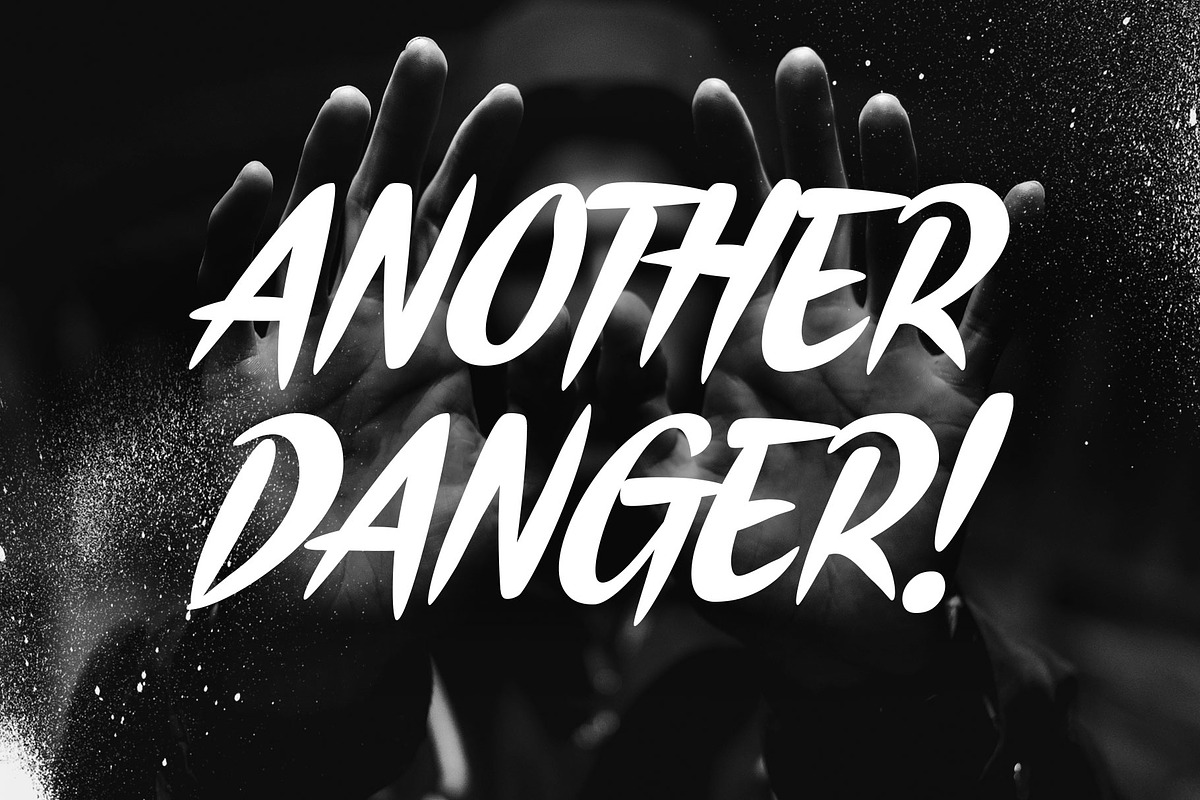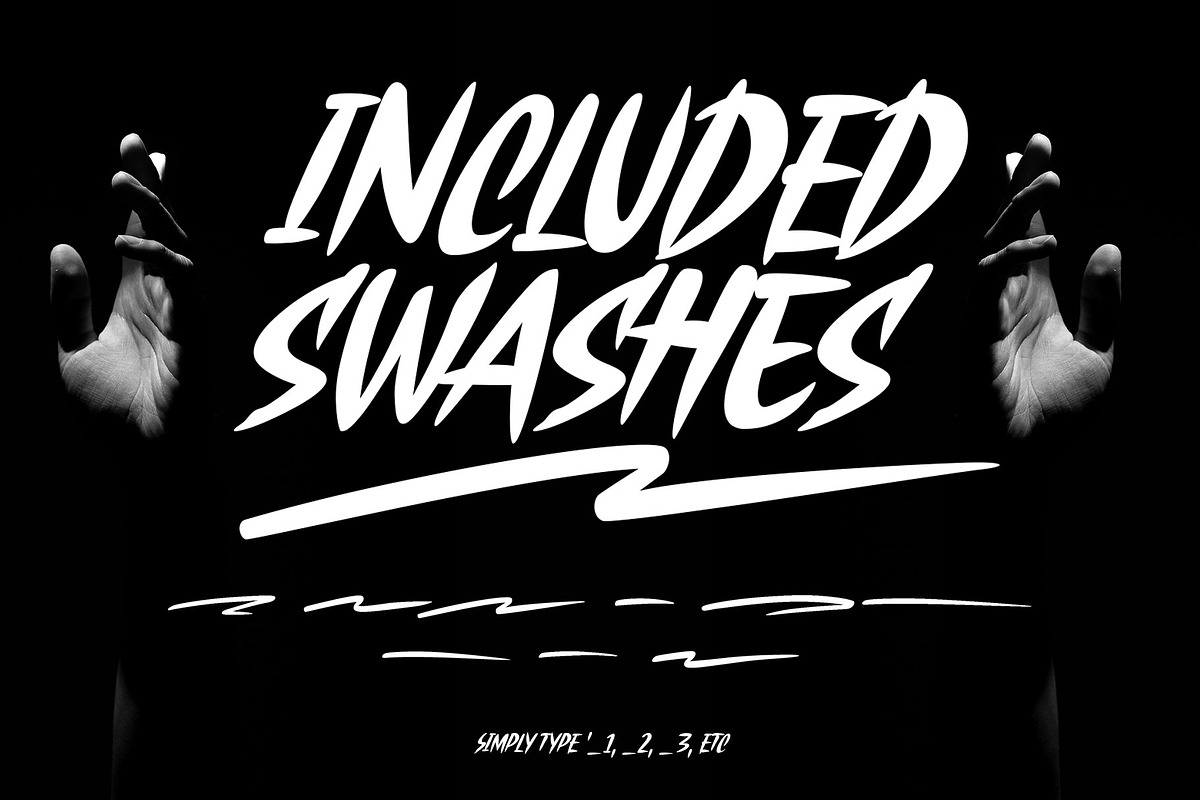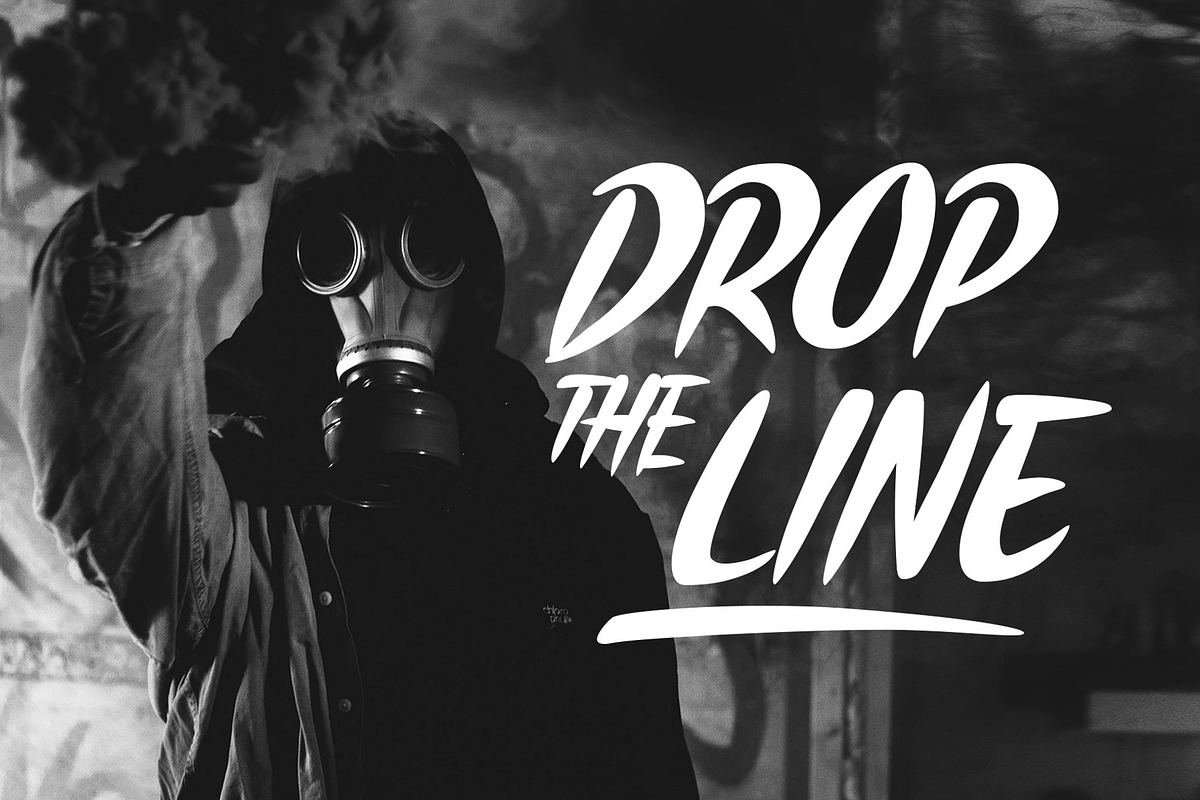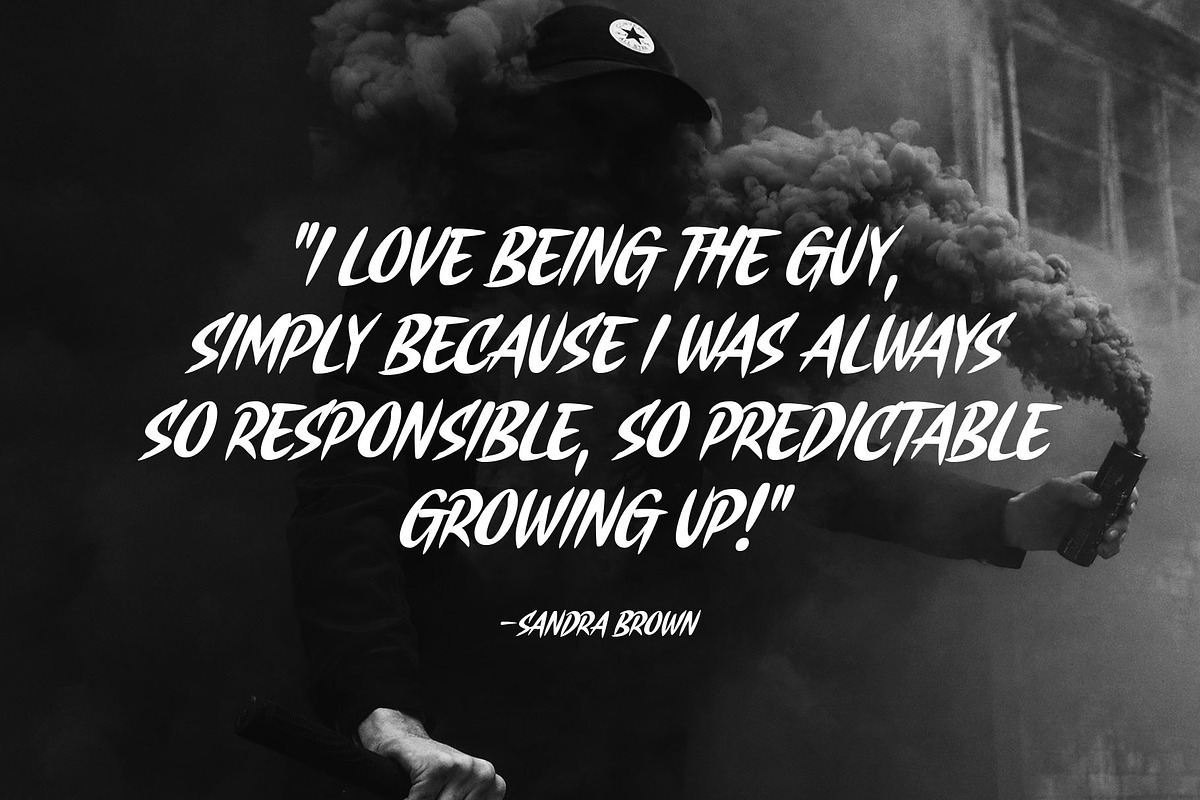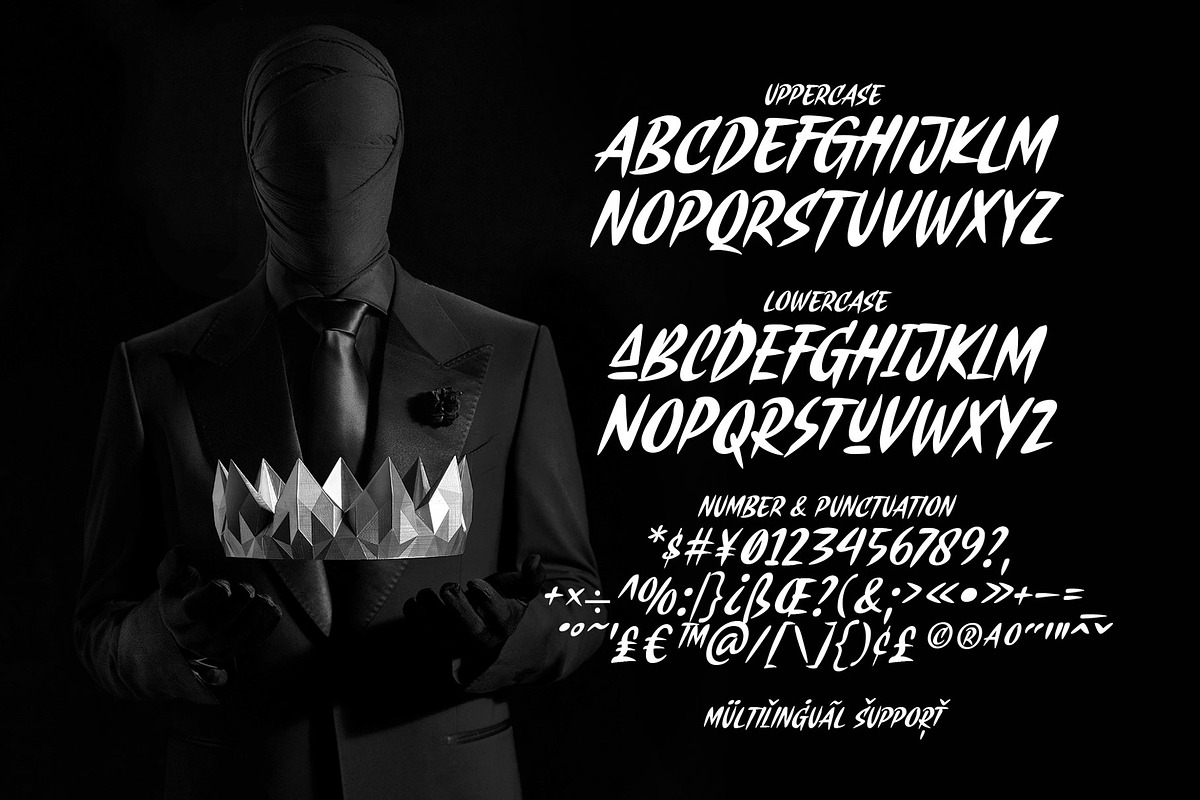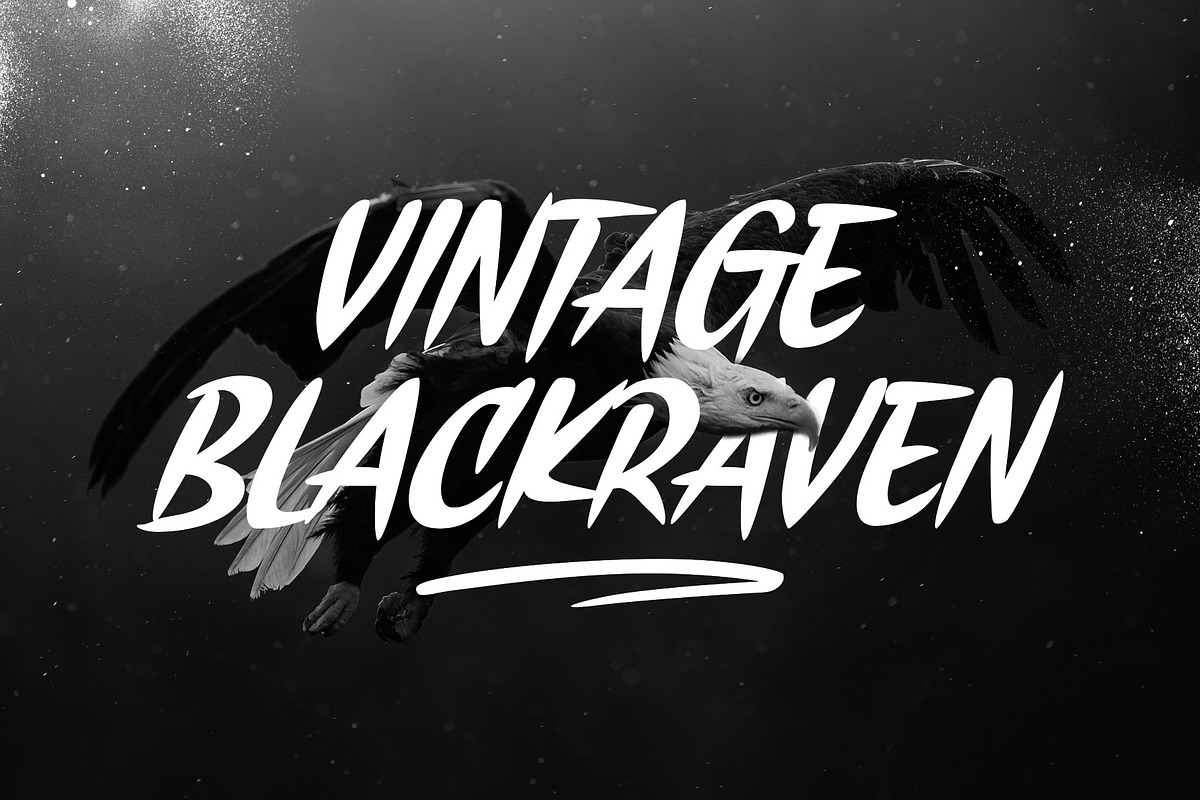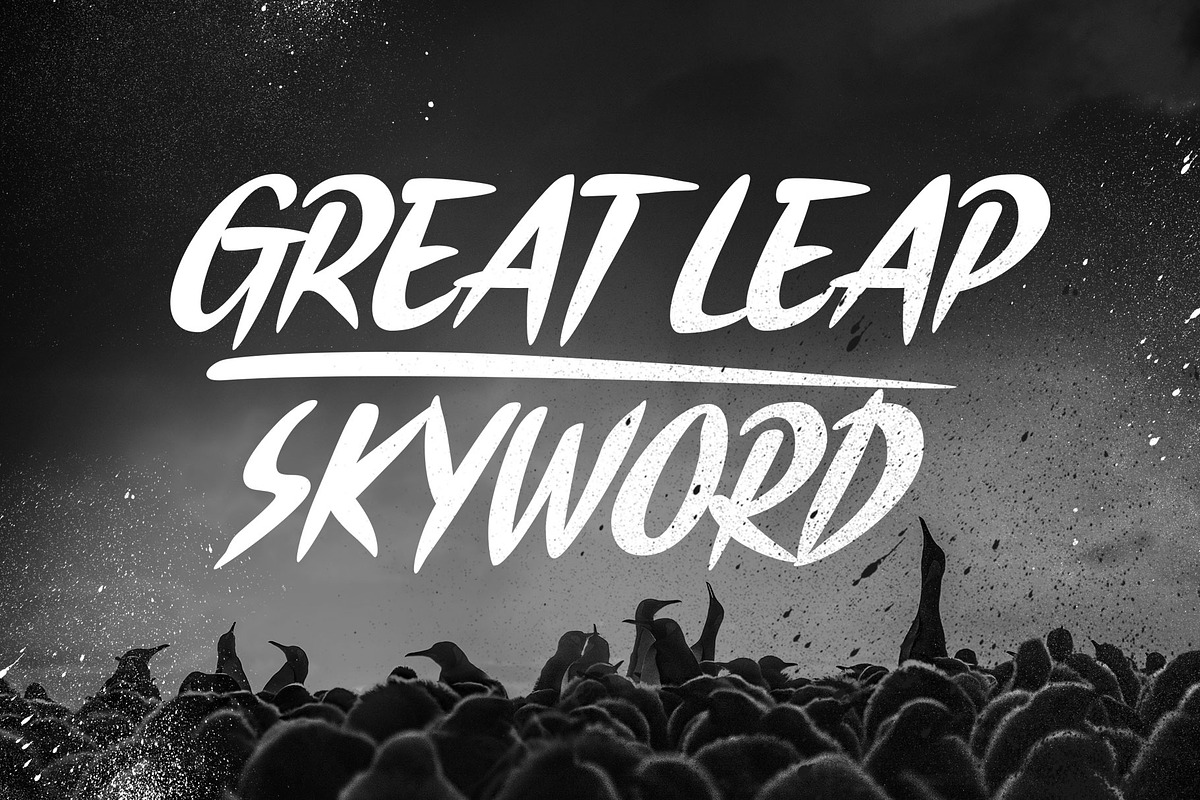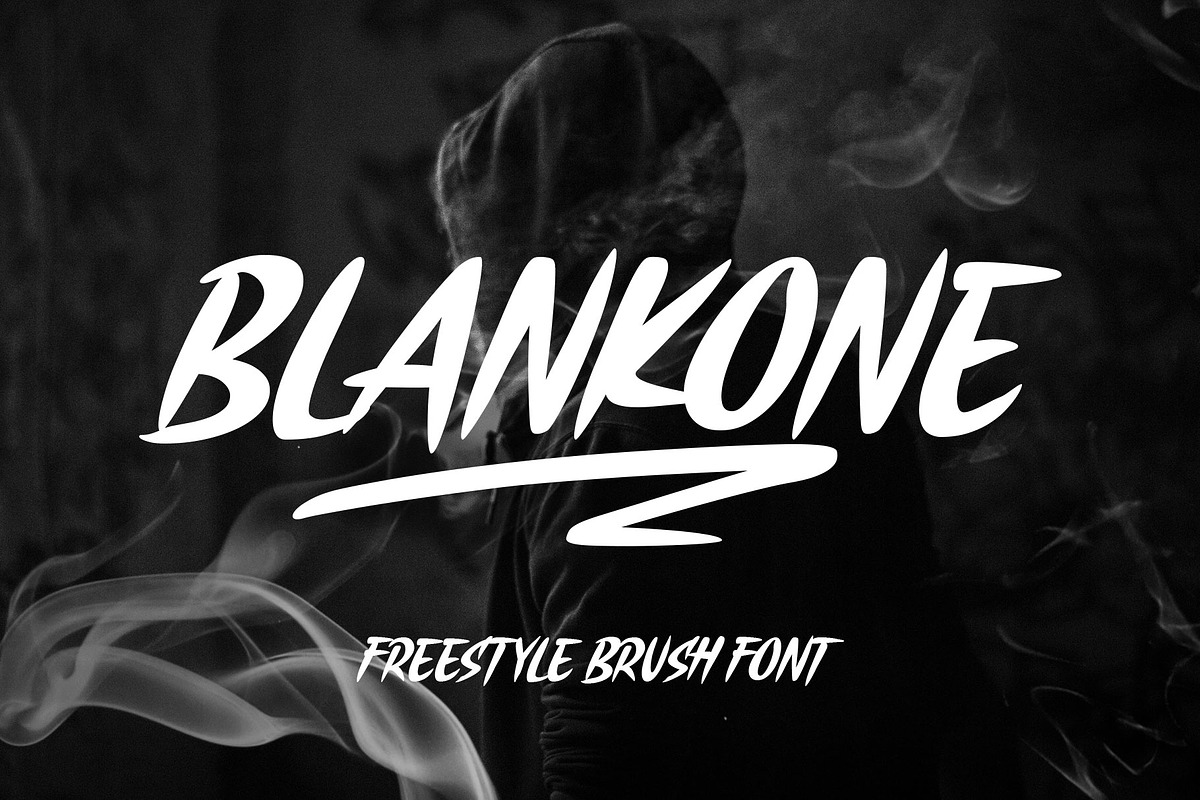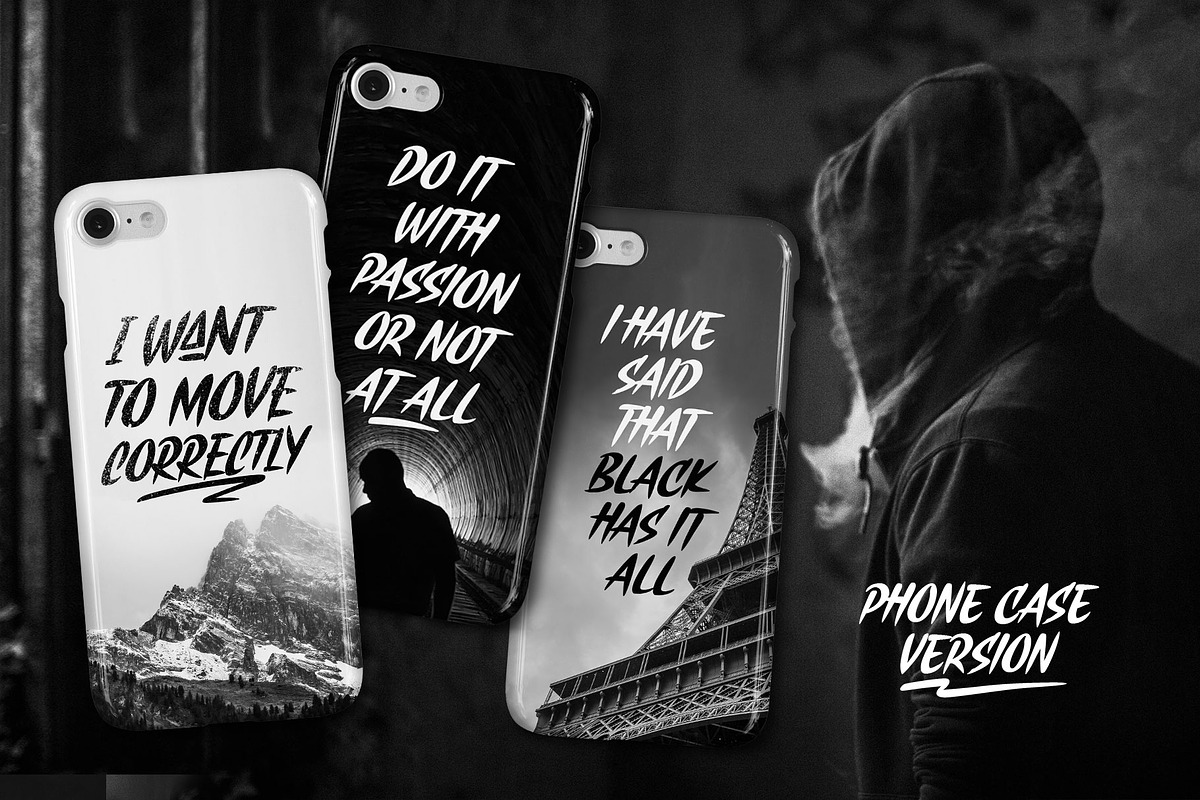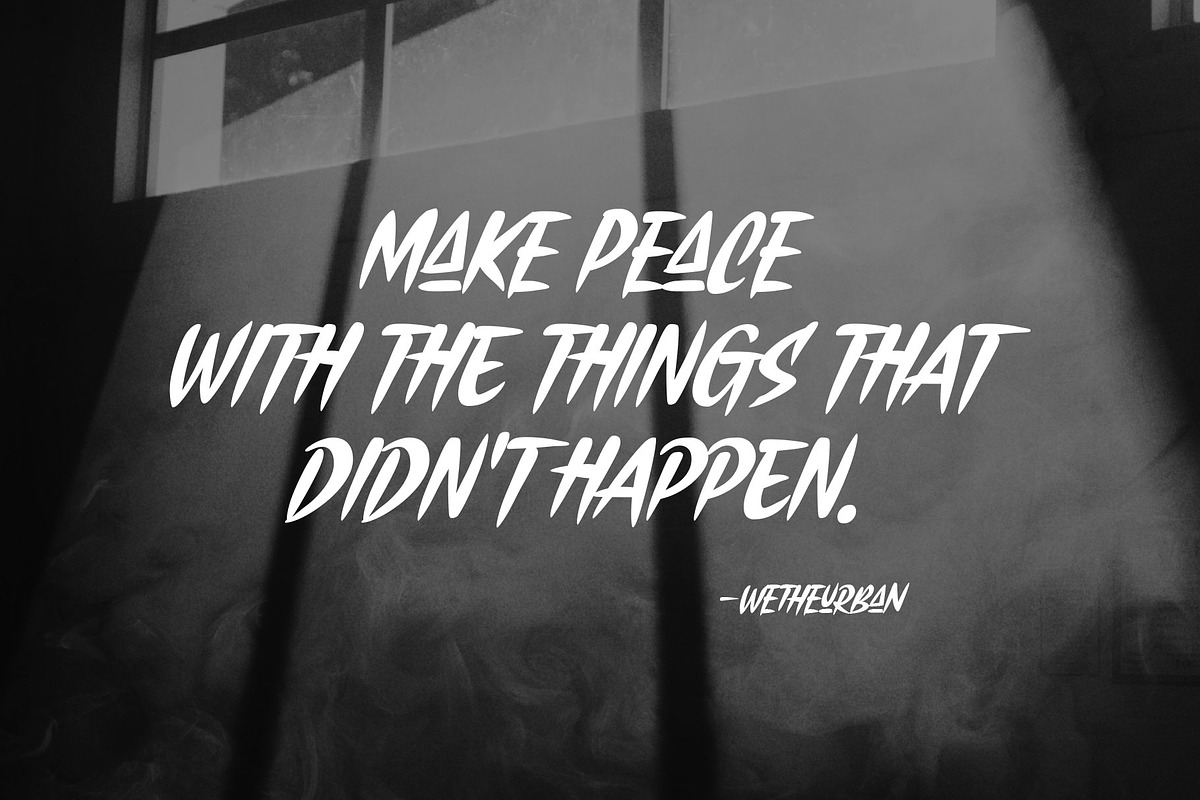
Blankone
Blankone is a solid freestyle brush font, created with expressive brush strokes, keeping the flows to gives the energetic effect, and get an eye-catchy combination between the uppercase and small caps, also complete with swashes
Vankours is perfect for many themes such as urban, thriller, sporty, horror, psychedelic, vibrant, and youth taste! Good choice to use this font for Logo, Merchandise, Brand imagery, Apparel, Packaging, Simple quotes, and many more!
Fonts Featured:
- All-caps font
- Solid and Energetic shapes